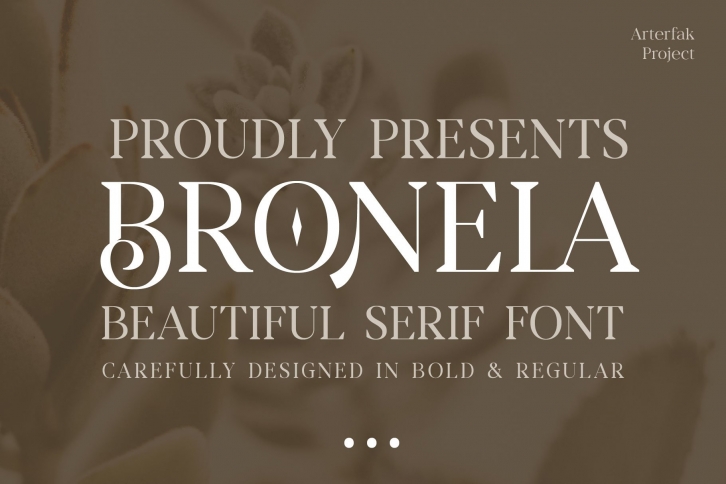
Bronela is a beautiful font that was designed by Arterfak Project. It's a great choice for designers and creatives who need such a font. It was released on October 20, 2020 and the file size is 2.77 MB. Bronela may give a more youthful, expressive and casual look to your project. It is a very beautiful, refined, elegant, and high-quality font.